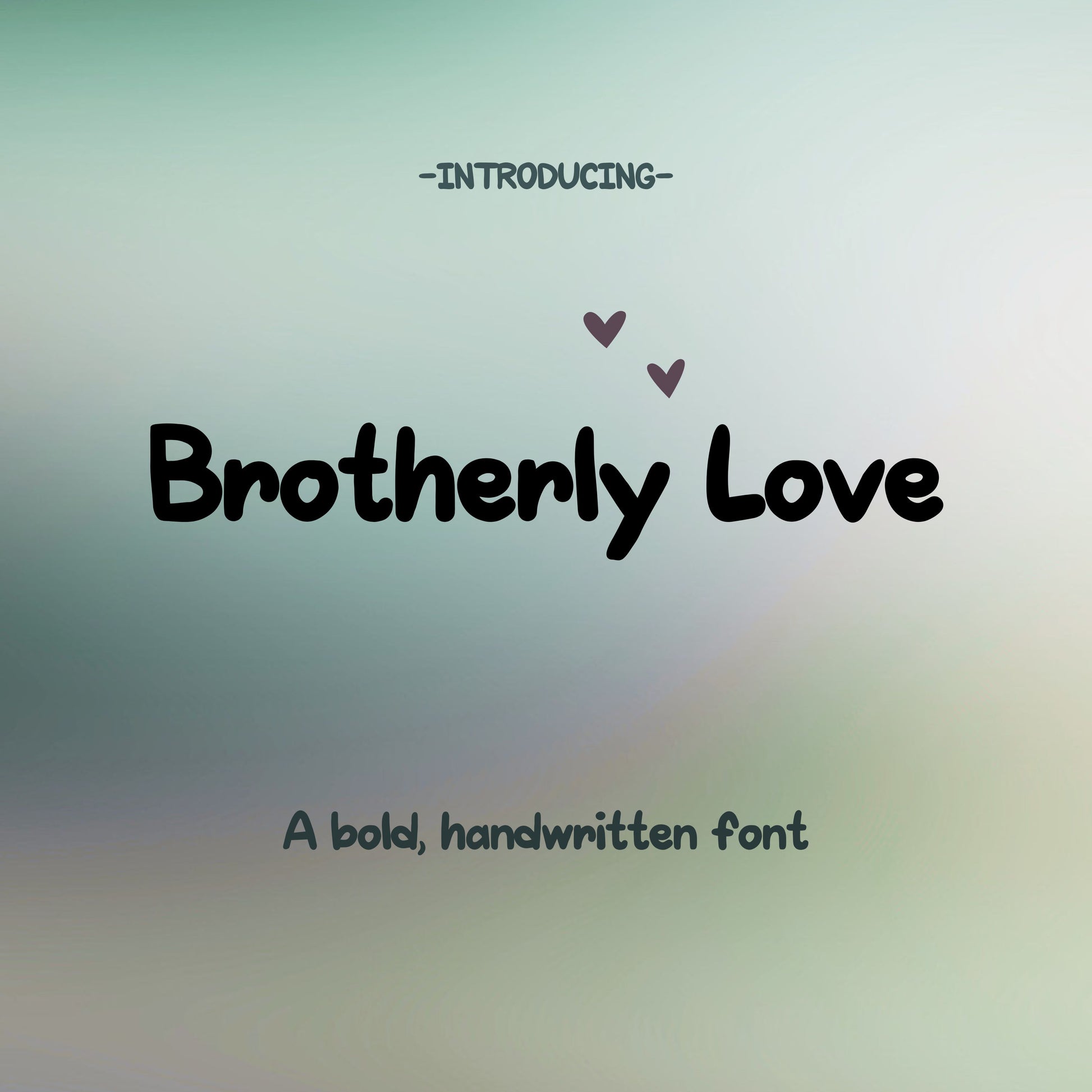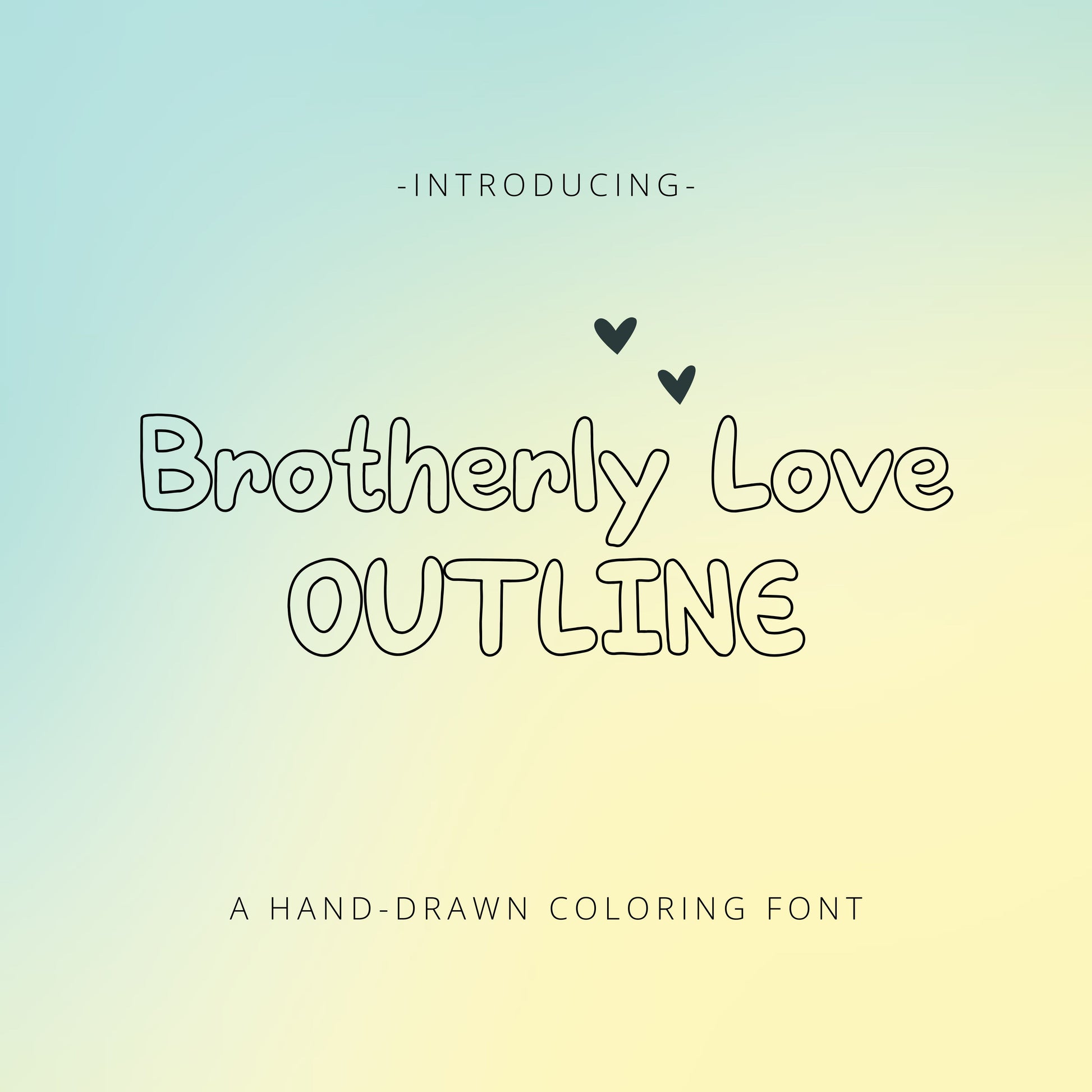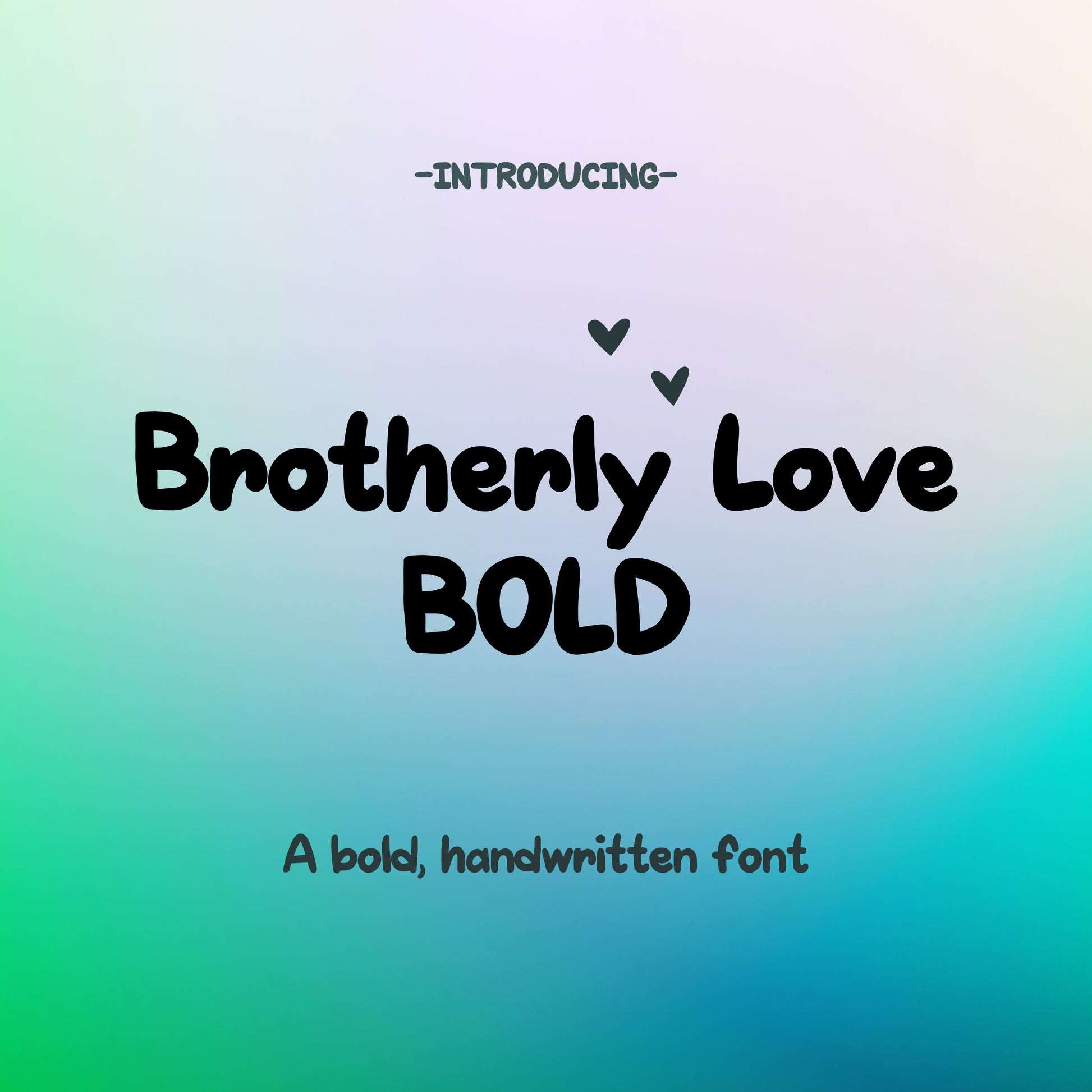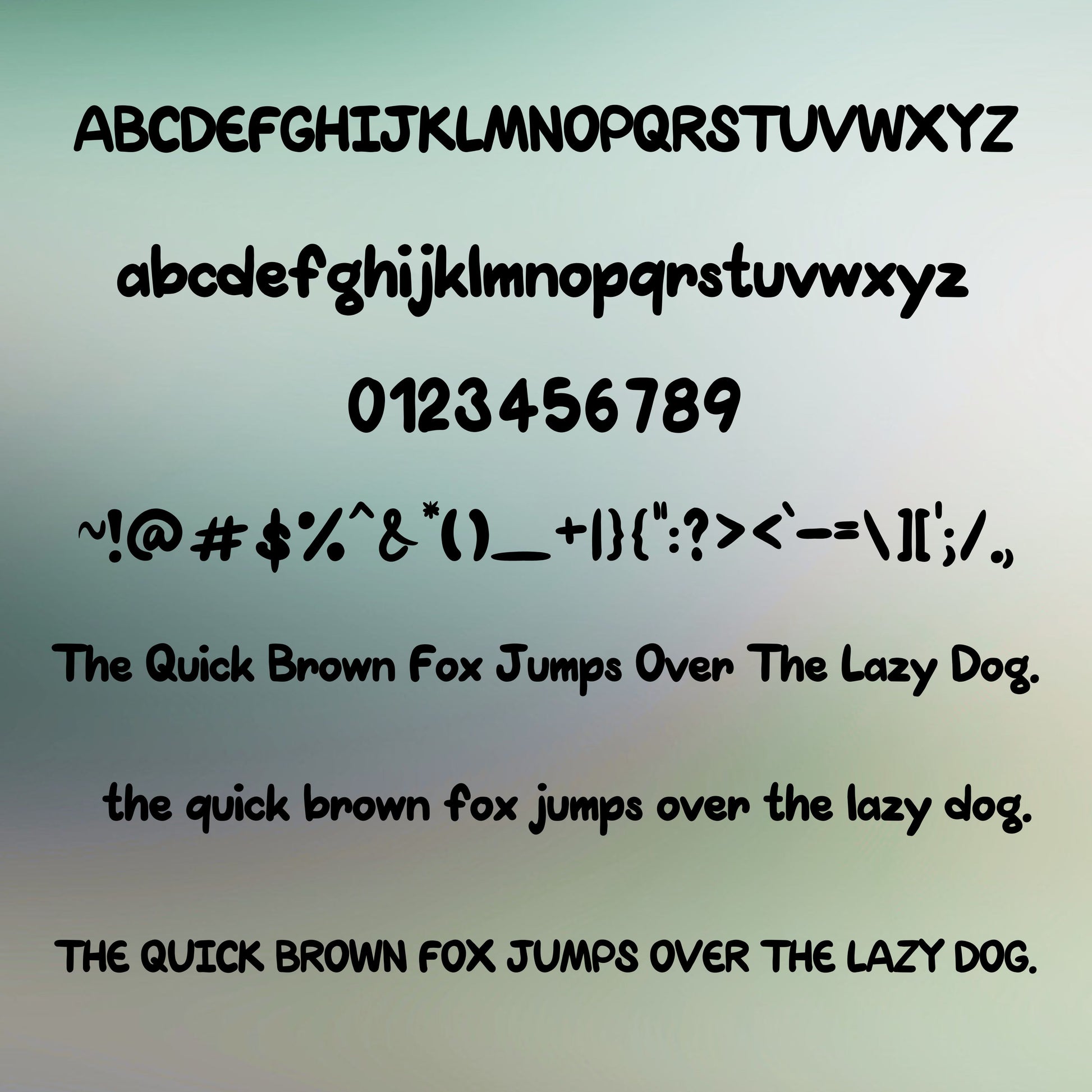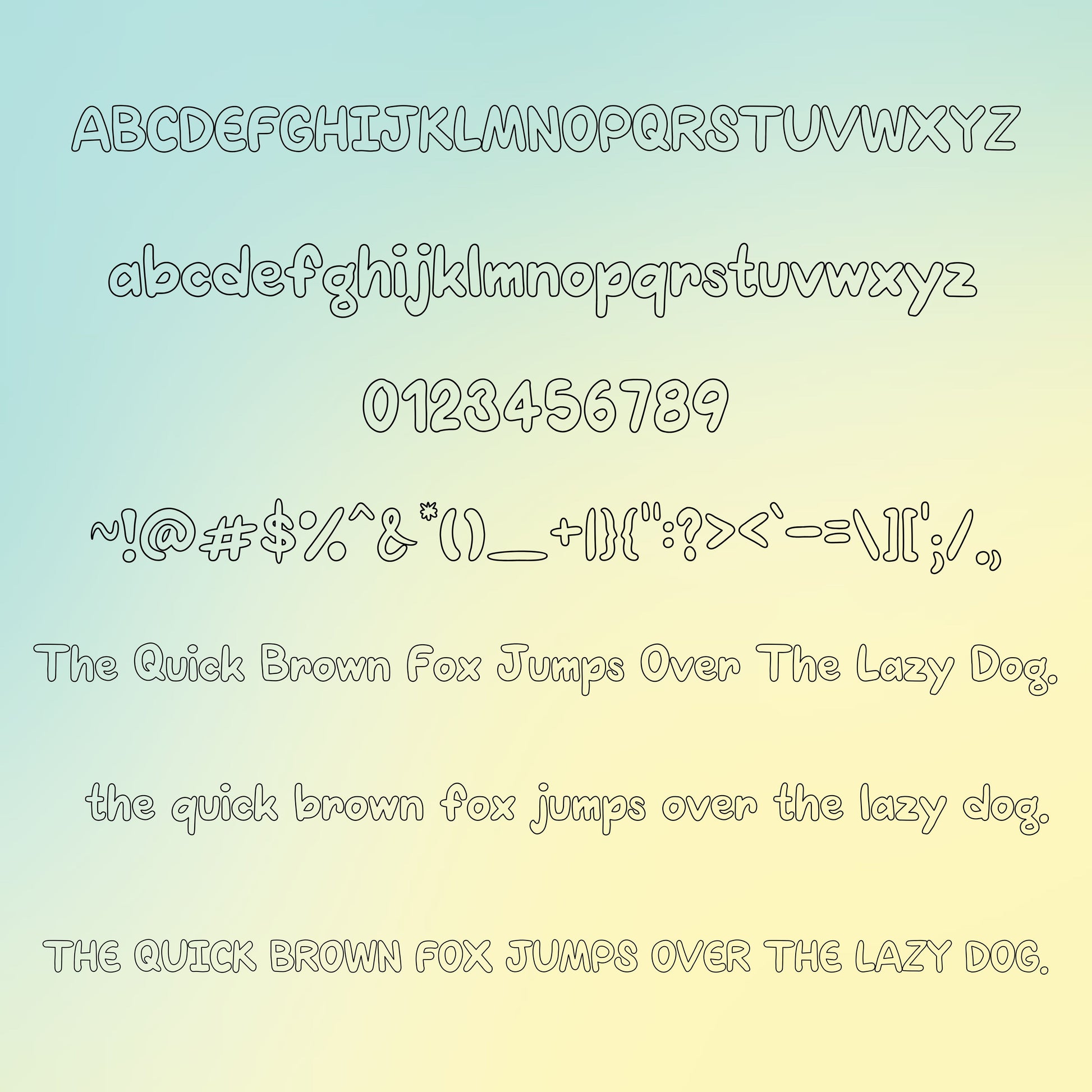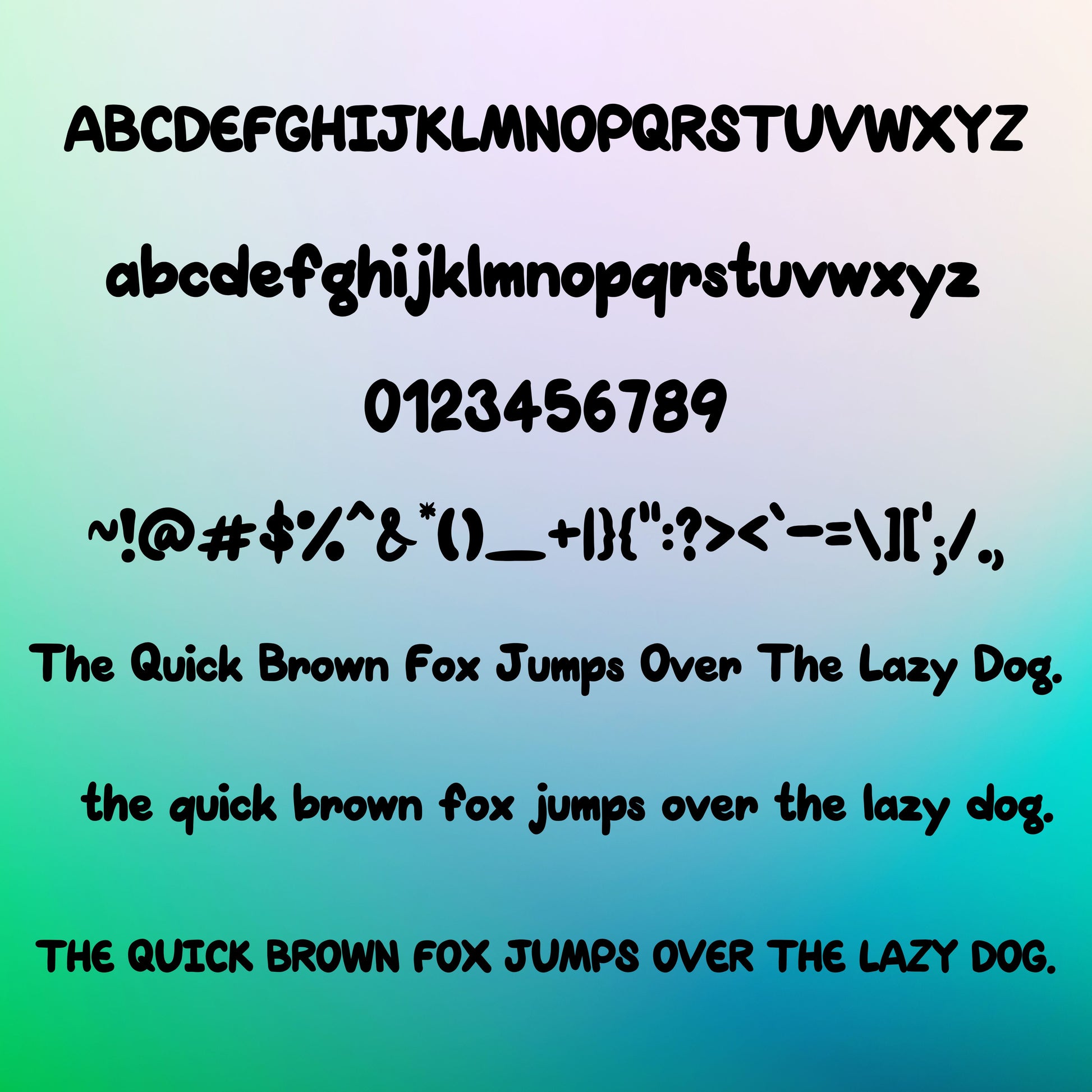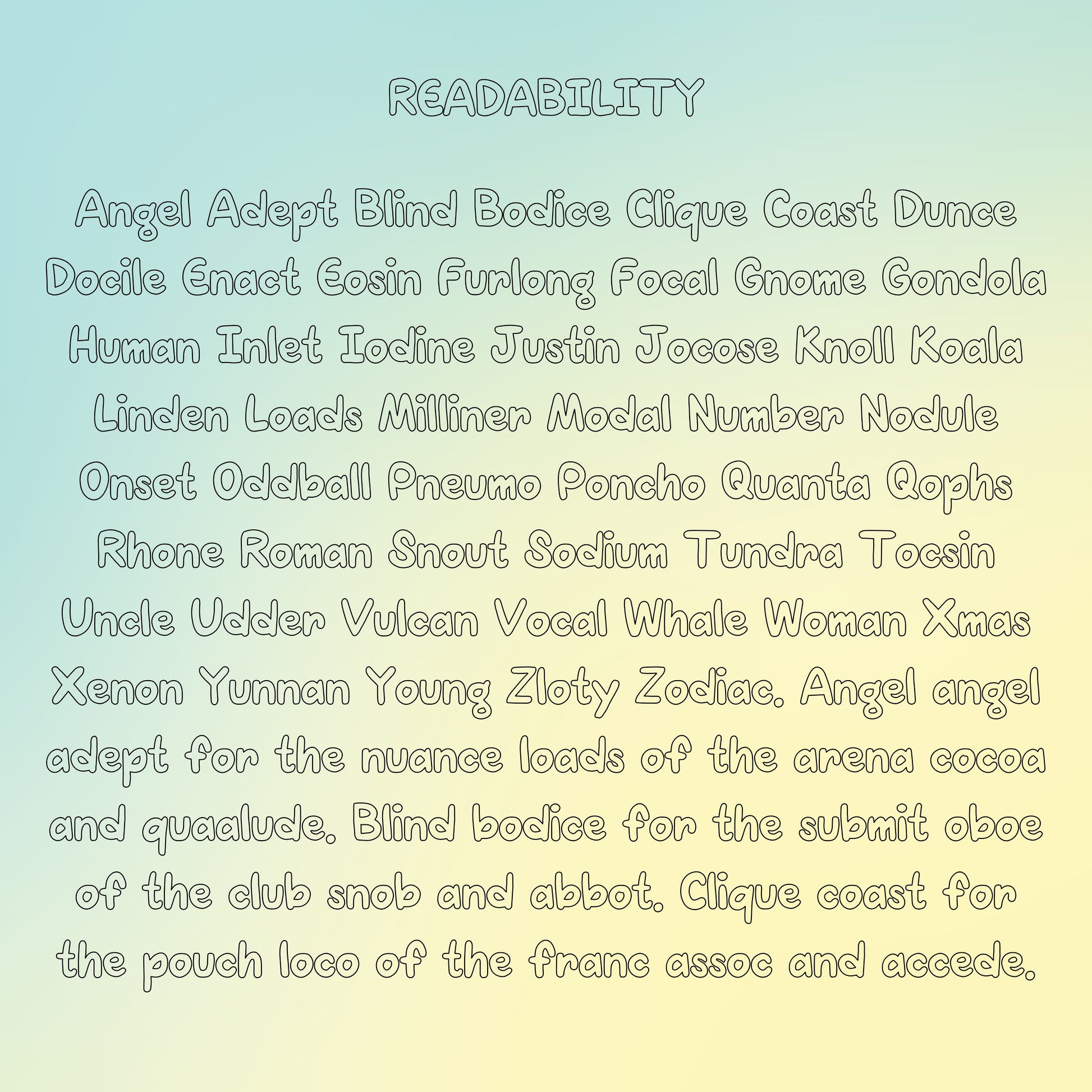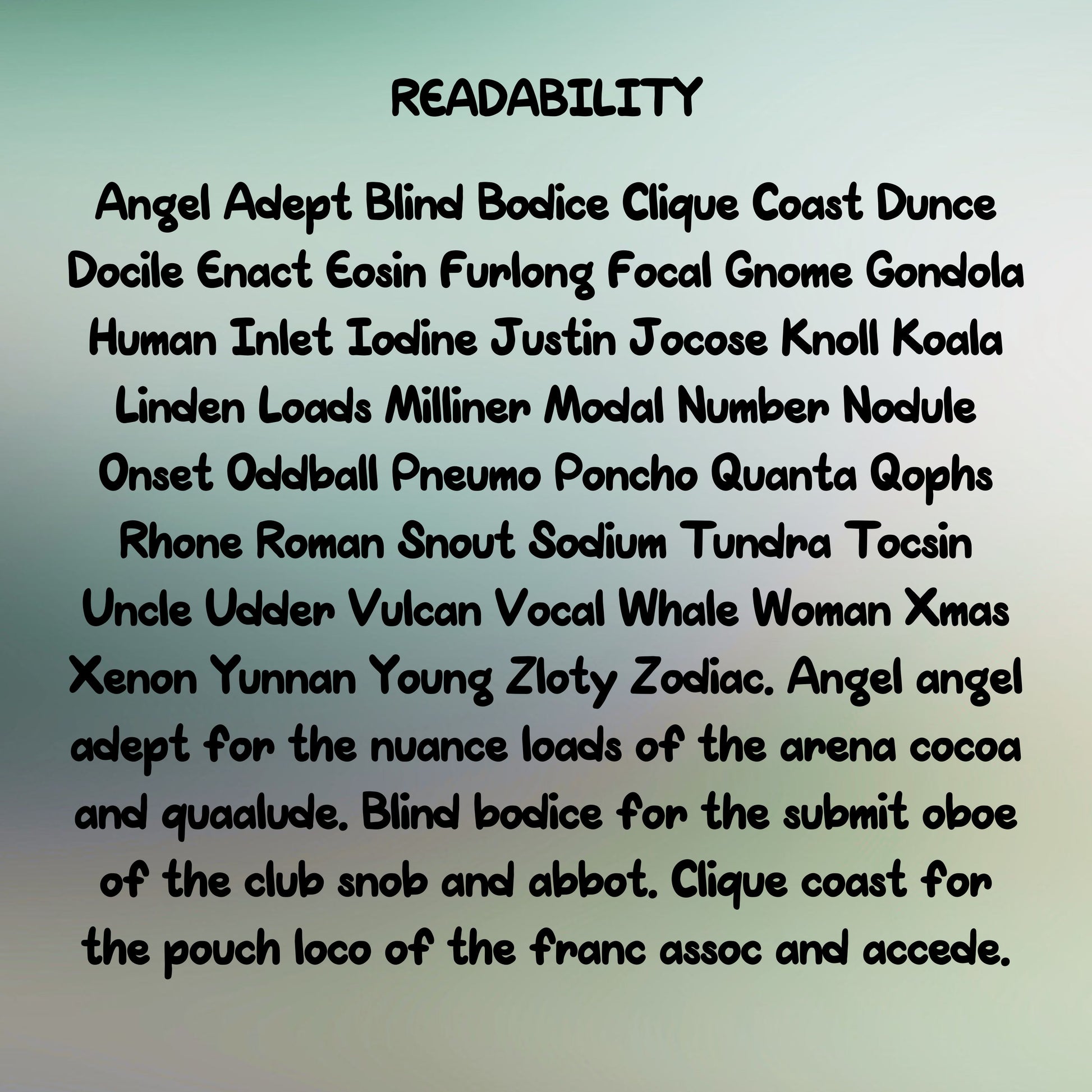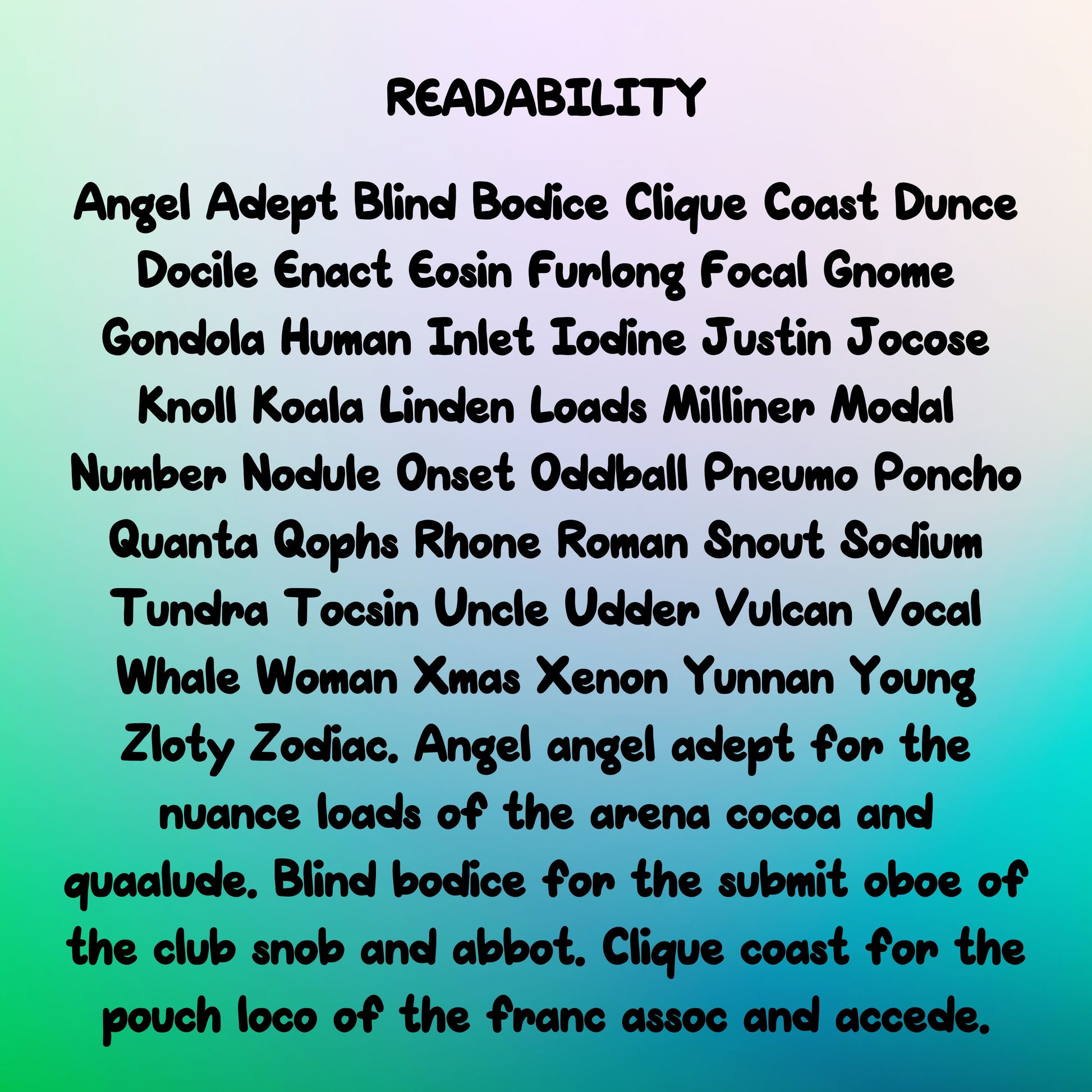
This bundle includes all 3 font styles in the typeface, "Brotherly Love."
This font is unique in that I created it from my handwriting and it is 100% original.